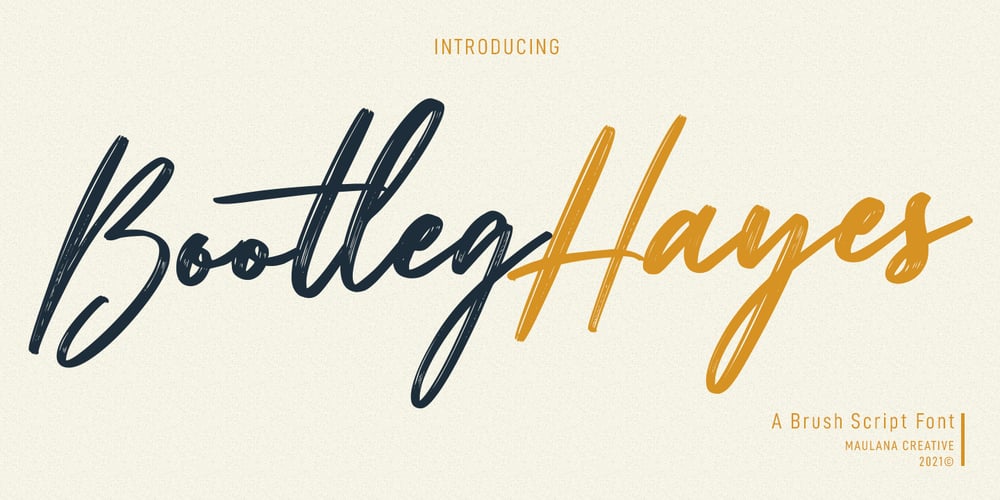
Bootleg Hayes Font Family was designed by Gilang Maulana and published by Maulana Creative. Bootleg Hayes contains 1 styles and family package options. Bootleg Hayes is a fancy brush script font. With brush texture stroke, slanted and fun character with a bit of ligatures. To give you an extra creative work. Bootleg Hayes font support multilingual more than 100+ language. This font is good for logo design, Social media, Movie Titles, Books Titles, a short text even a long text letter and good for your secondary text font with sans or serif. Make a stunning work with Bootleg Hayes font. Cheers, MaulanaCreative